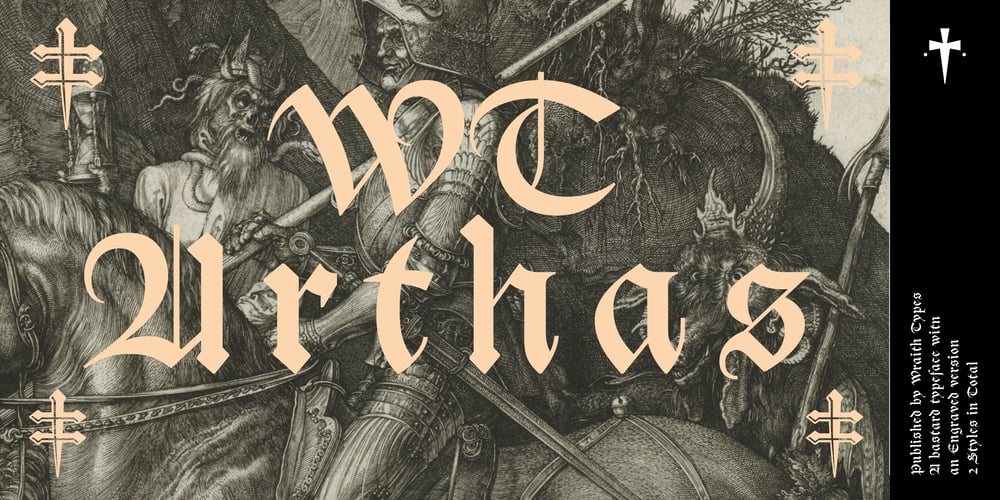
WT Arthas Font Family was designed by Guillaume Jean-Mairet and published by Wraith Types. WT Arthas contains 2 styles and family package options. Inspired by the « lettres bastardes », Arthas is a modern interpretation of ancient letterforms dating far back, before type even existed. It has been subtly adapted for better readability in 2020.The sharpness of the design creates an elegant contrast between old and new, ancient and futuristic, and will add an ominous, regal mood to your graphic design projects.This typeface is meant mostly for display use, but we can’t wait to receive a picture of someone using it for introductory text, at the start of a book…. Maybe that’s you?As all of our releases, it will be updated at time goes on. Those updates will always be free for people having already purchased the font(s).